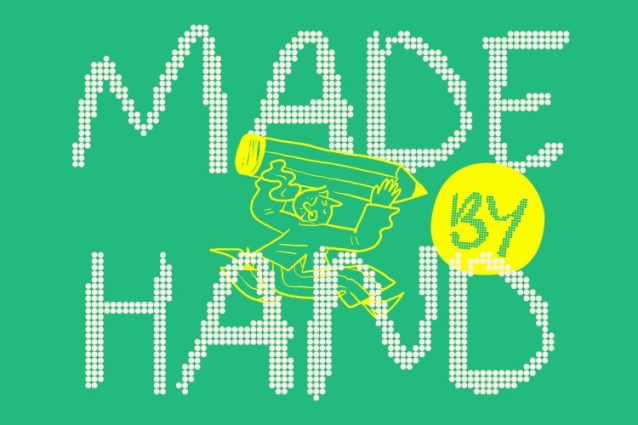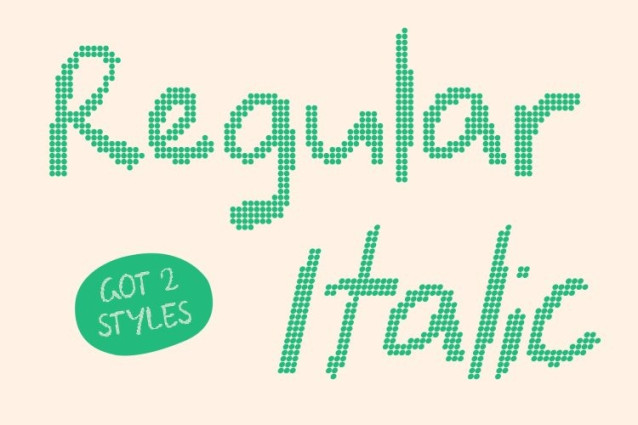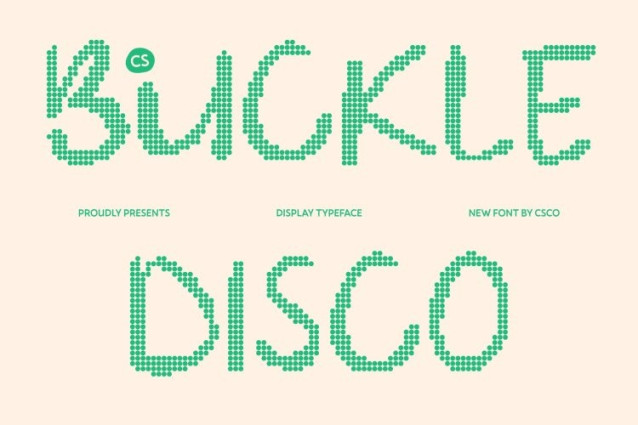
CS Buckle Disco Font
CS Buckle Disco Font This embraces the rebellious charm of ugly typography and amplifies it with vibrant disco-inspired dots. Its irregular strokes and intentionally unpolished shapes remain bold and chaotic, while the glowing dotted construction adds a lively sparkle reminiscent of flashing dance-floor lights. The result is a typeface that celebrates imperfection with playful, high-energy flair.
Irregular Forms with Luminous Personality
Every letter keeps its unpredictable character uneven lines, quirky proportions, and spontaneous shapes but now shines with radiant dotted textures. This glowing rhythm transforms messy forms into dynamic visual elements that feel alive, expressive, and full of movement.
Playful Rebellion with Party Vibes
This font balances chaotic creativity with cheerful energy. The rough, unconventional shapes express individuality and artistic freedom, while the disco-style sparkle adds a fun, celebratory tone that keeps the design approachable and engaging.
Perfect for Bold and Experimental Designs
Ideal for youth branding, underground posters, music graphics, zines, playful packaging, and experimental layouts, this font thrives where originality matters most. It turns imperfection into a vibrant statement bold, quirky, and impossible to ignore.